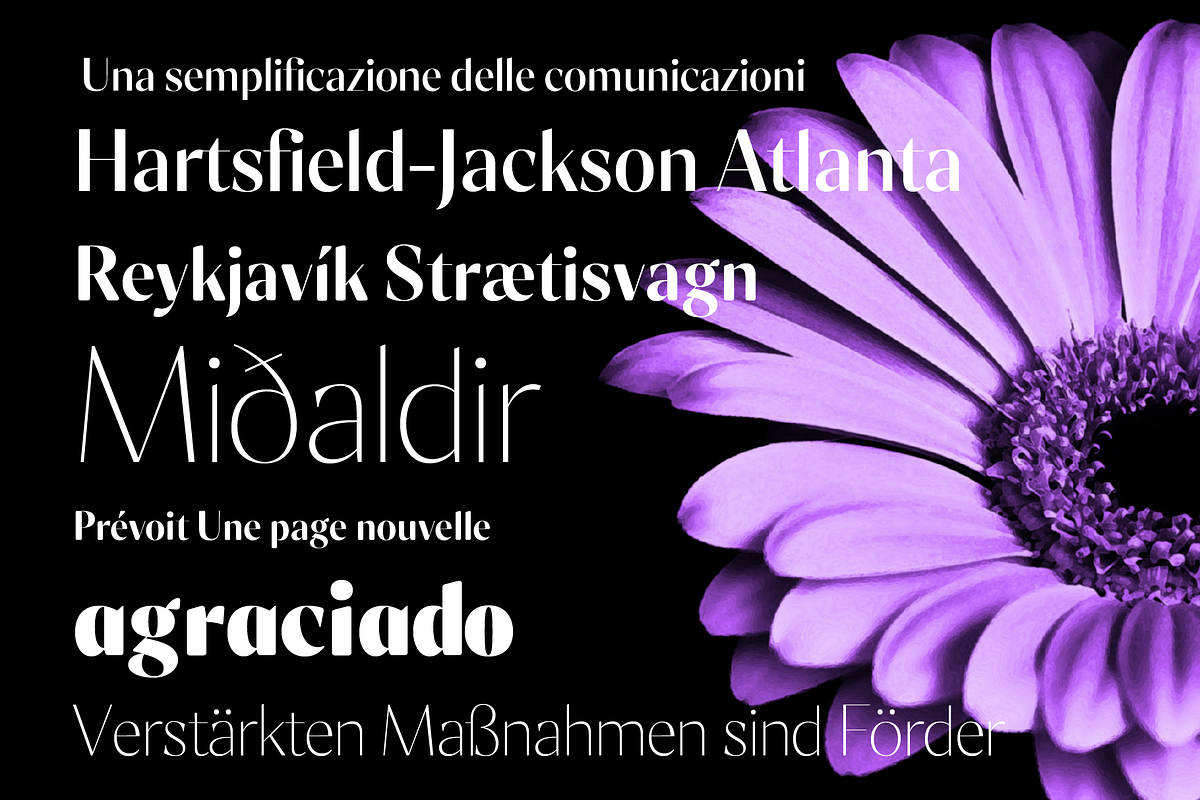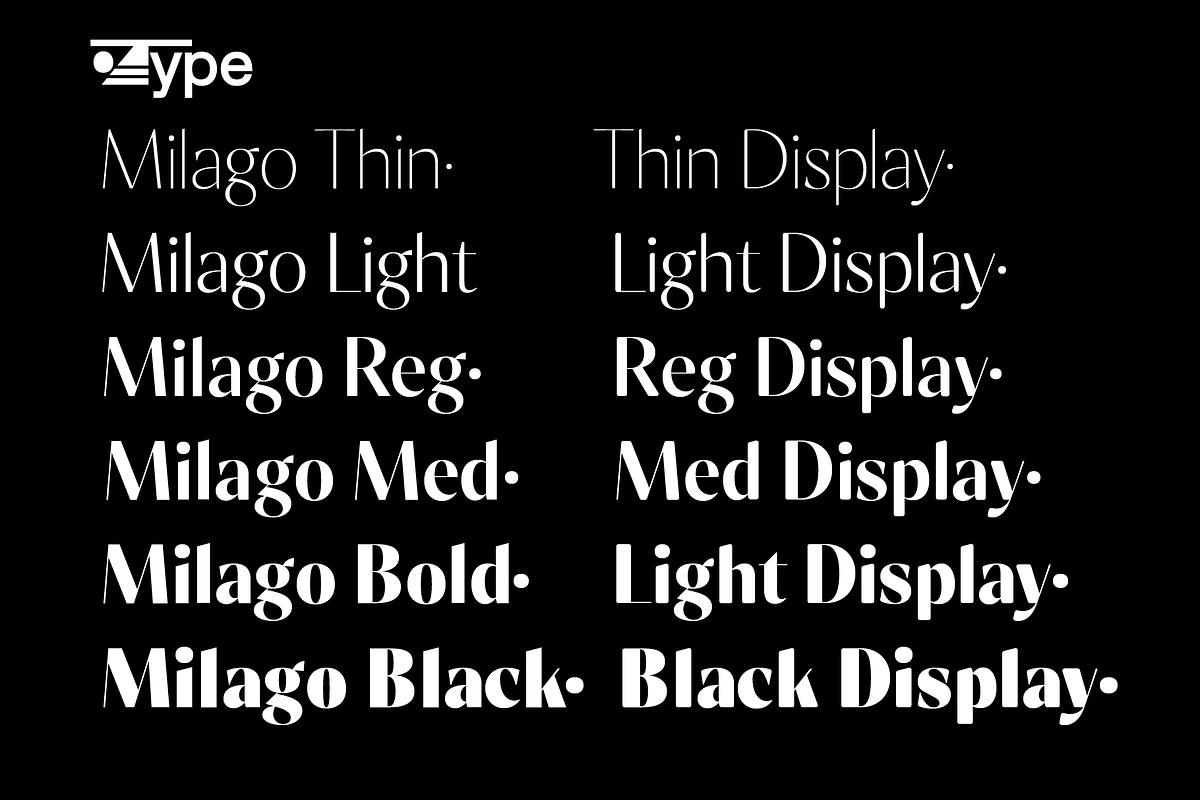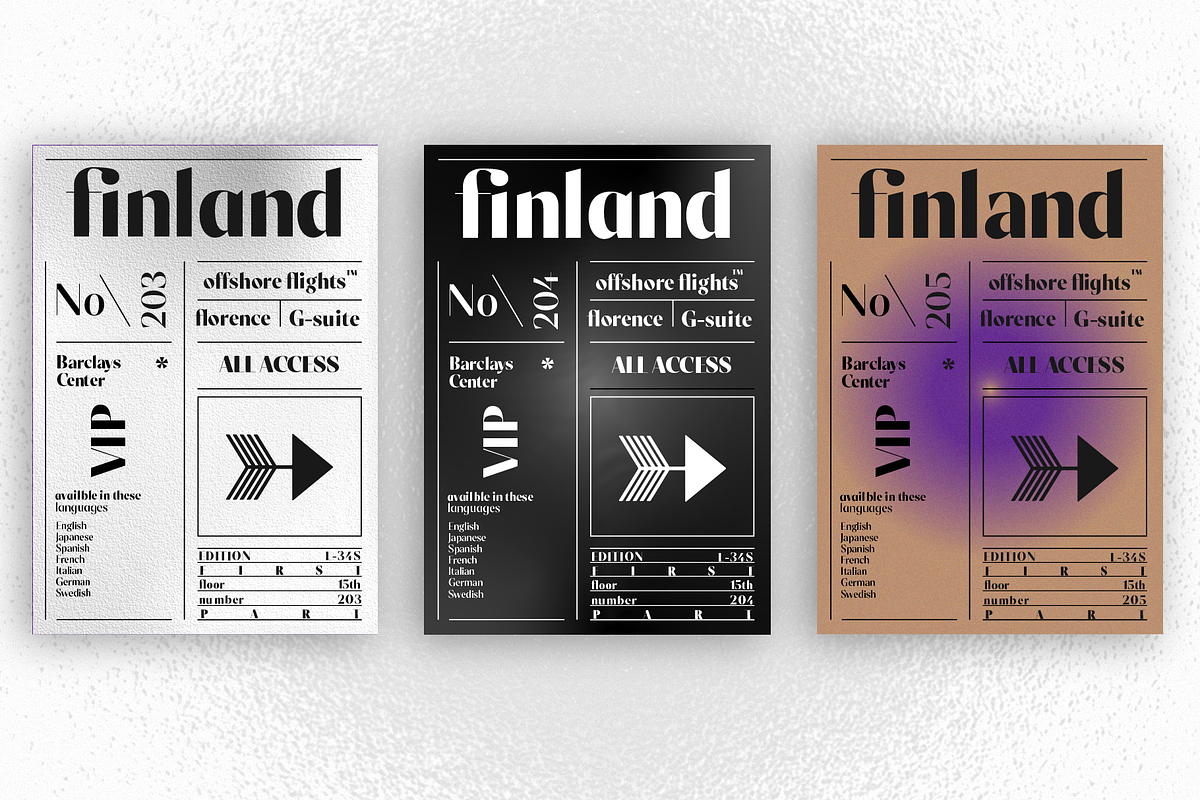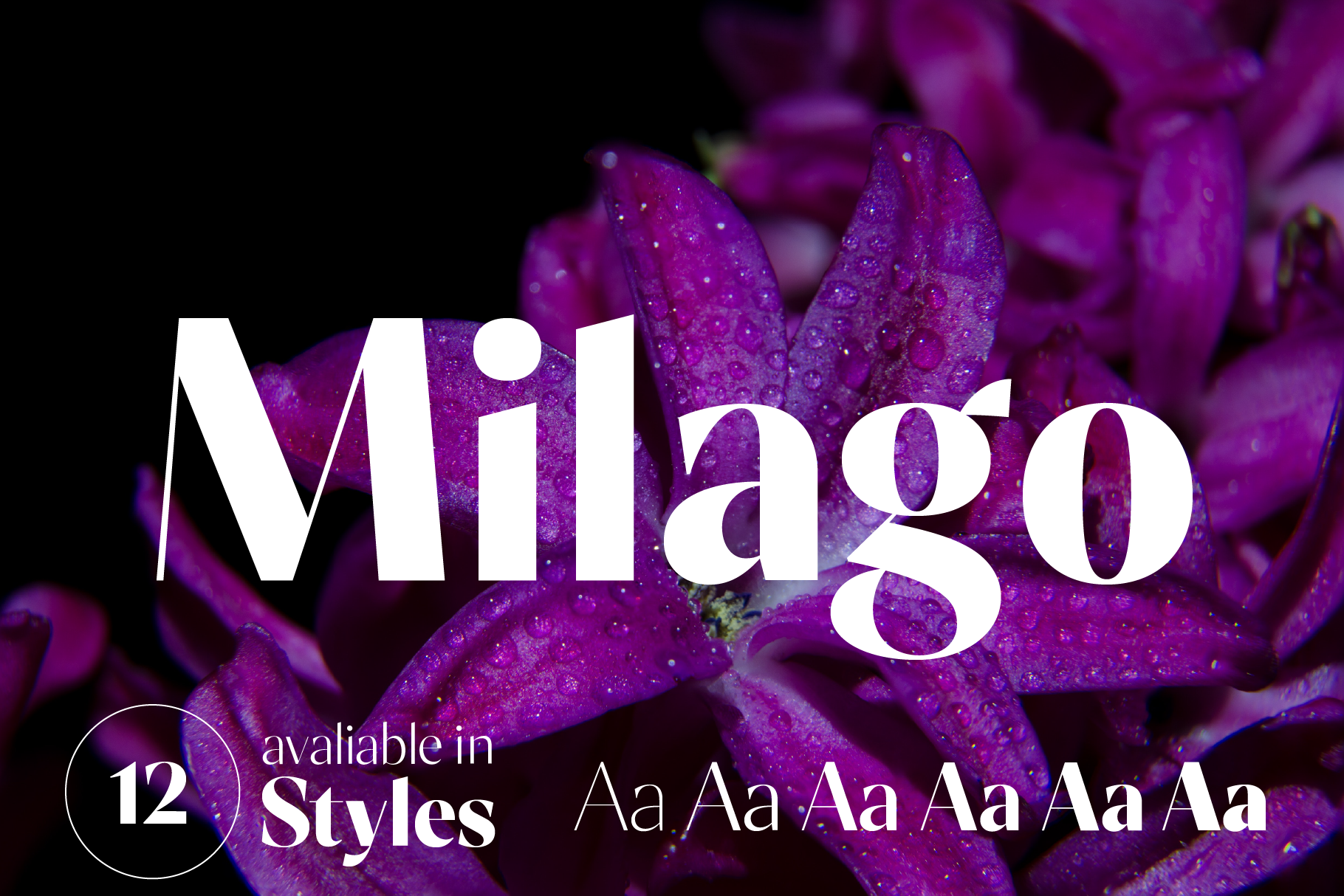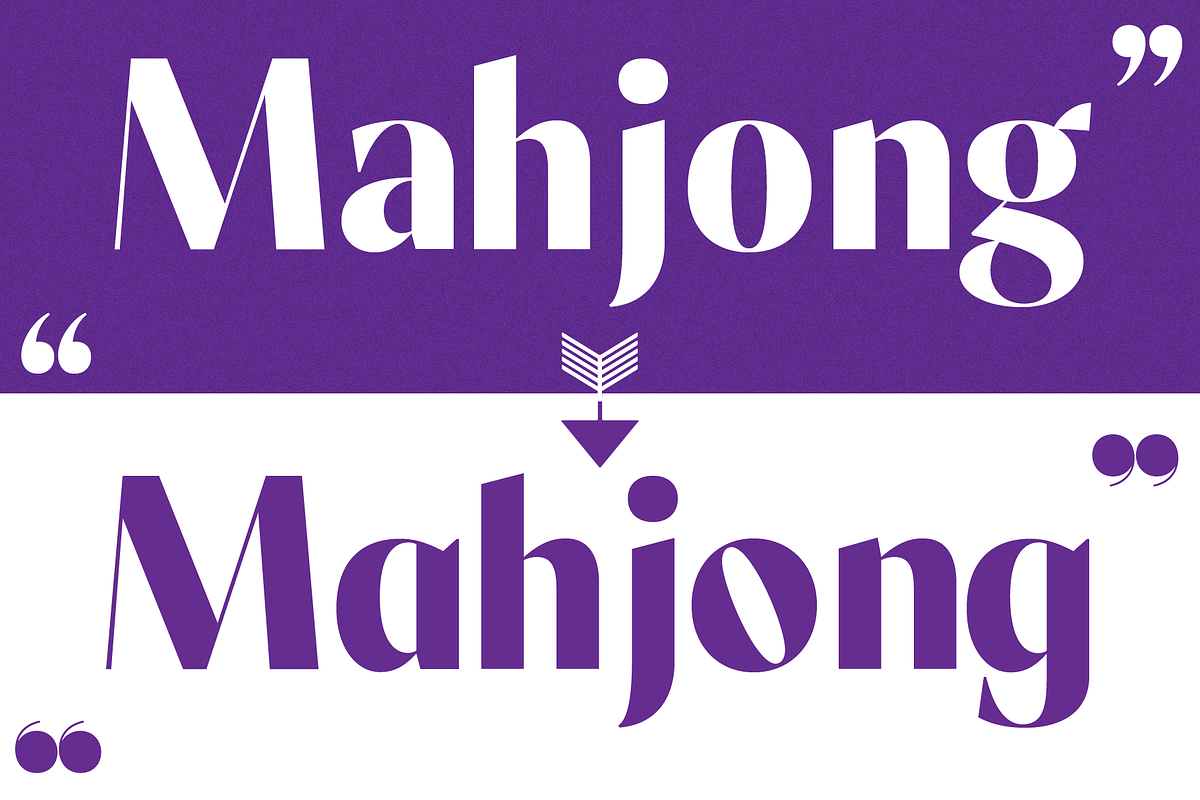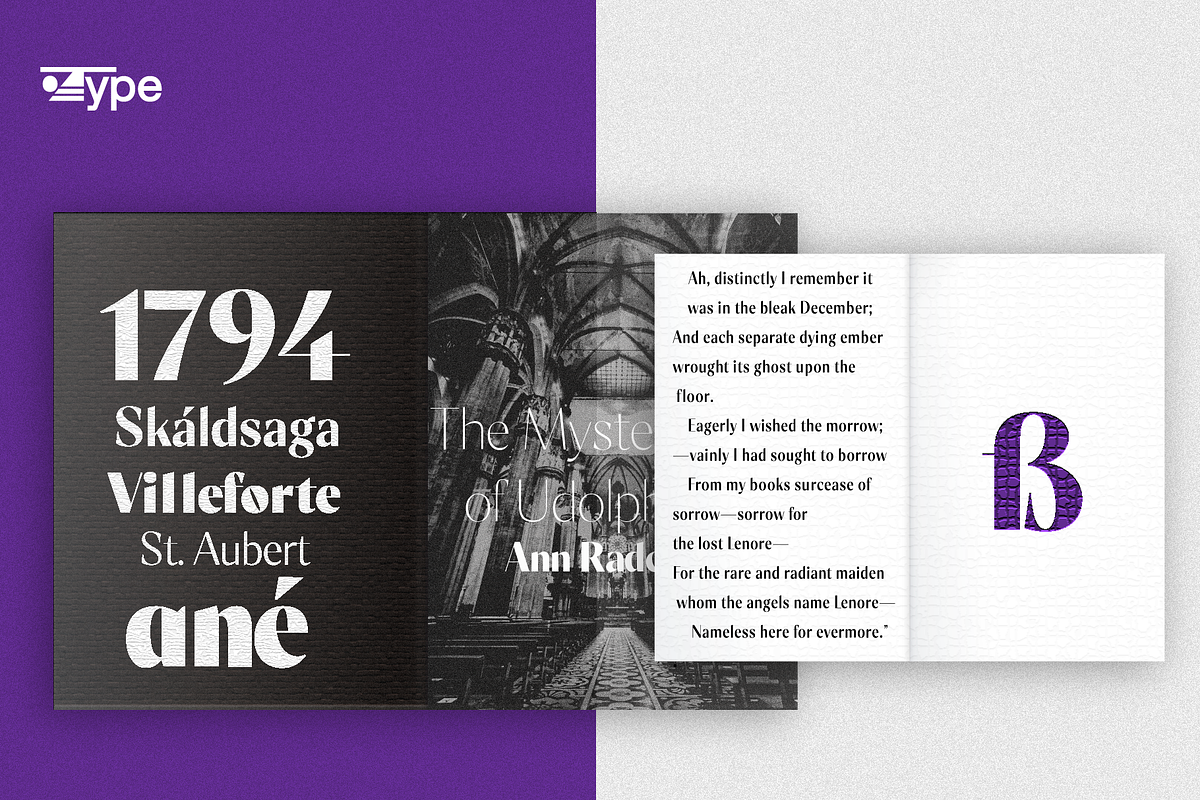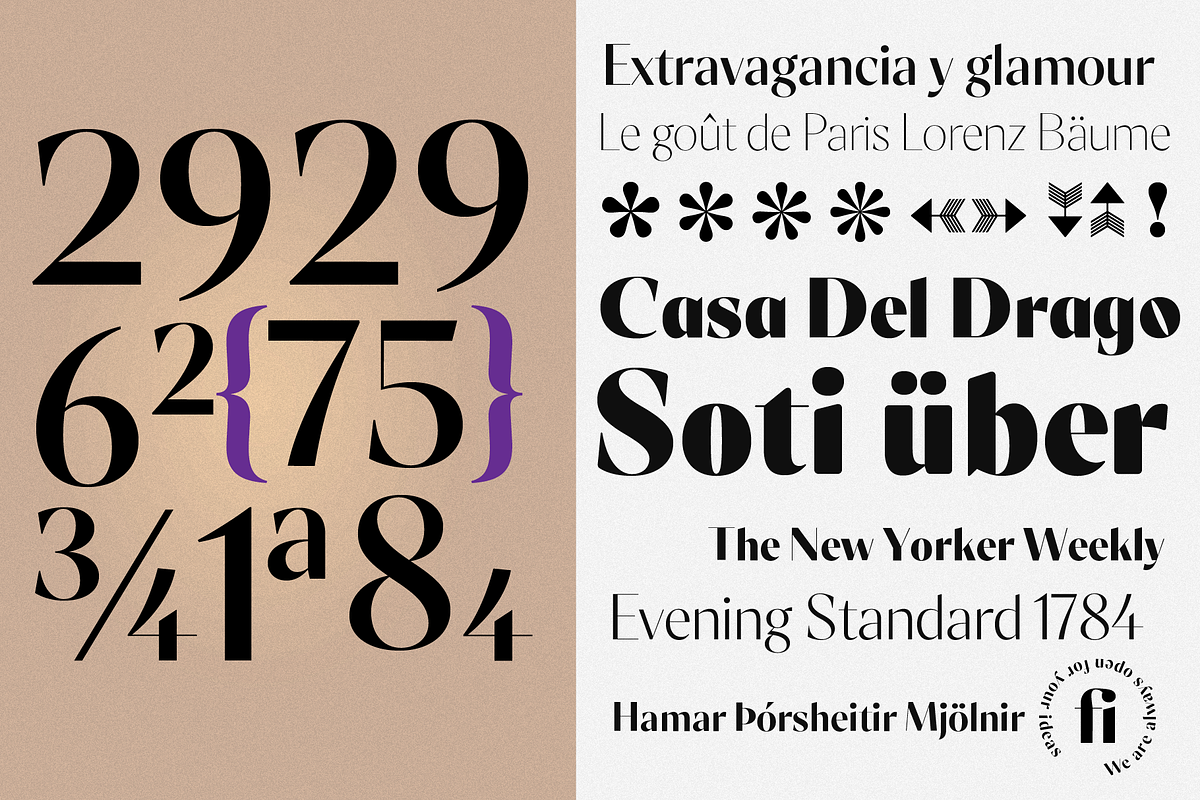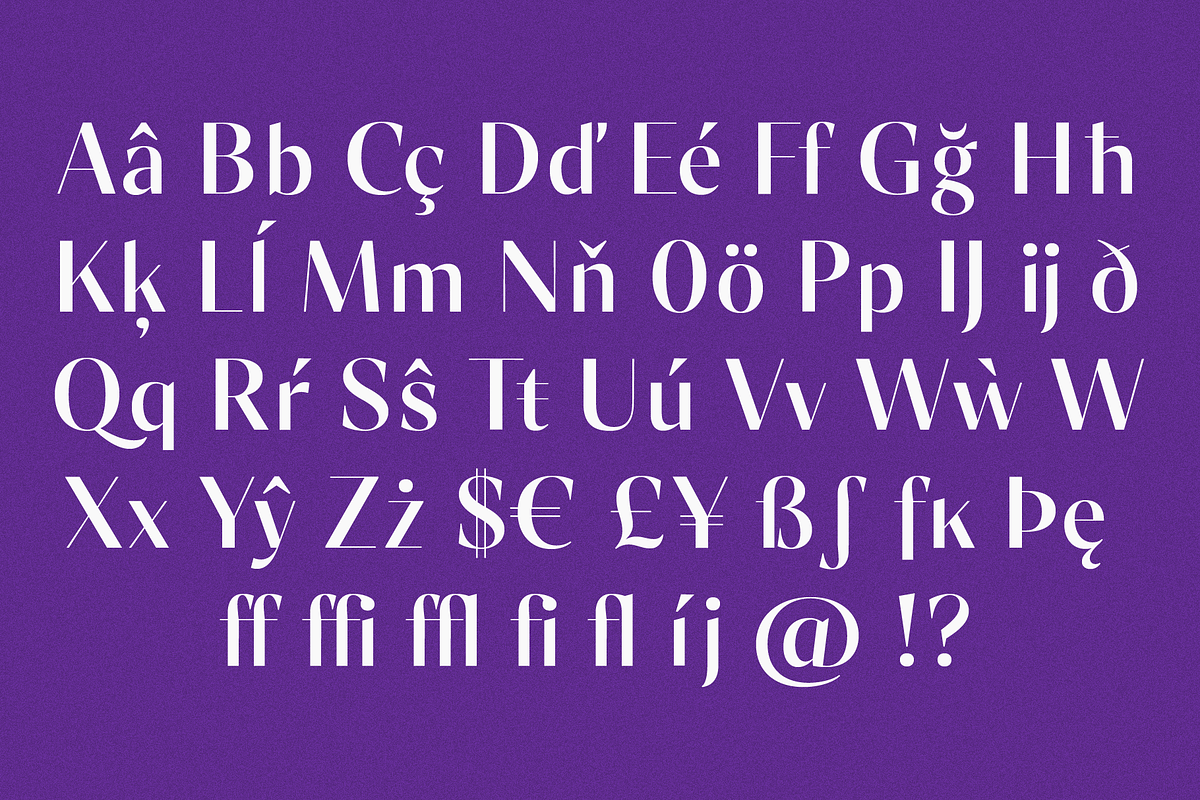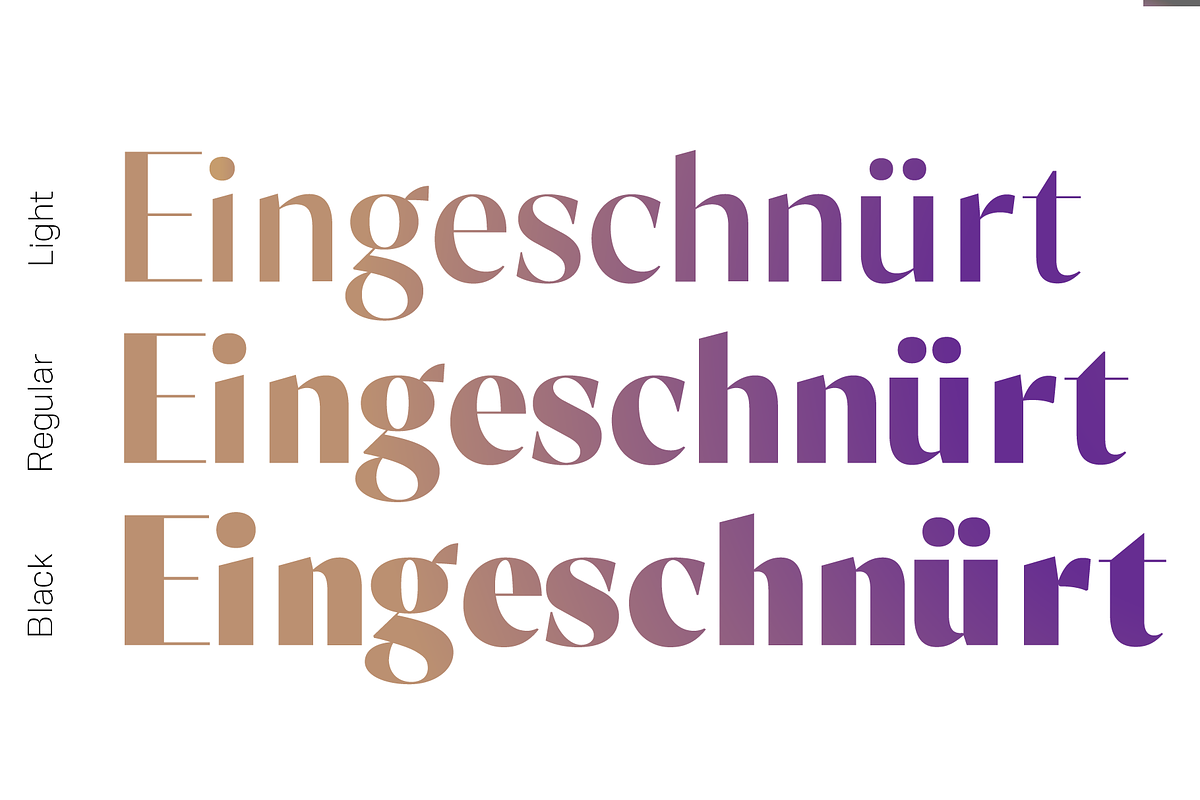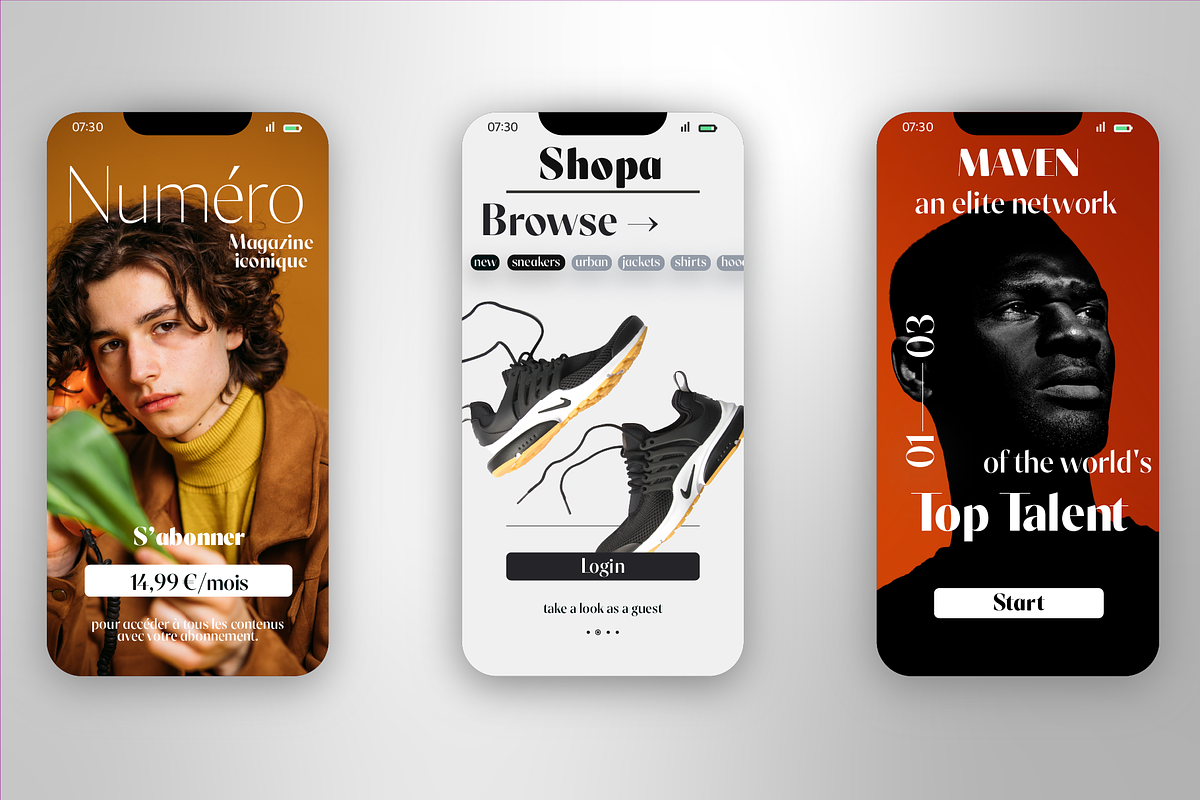
Milago Font Family
Milago is an elegant sans-serif display typeface with high contrast It has six weights ranging from thin to black, features several stylistic alternates and supports multiple opentype features its consistent rhythm and its thick/thin contrast gives it excellent legibility whether on screen or print, Milago's elegant and eye-catching design makes it ideally suited for almost any kind of use especially headlines, posters, packaging, magazines, Branding and so much more.